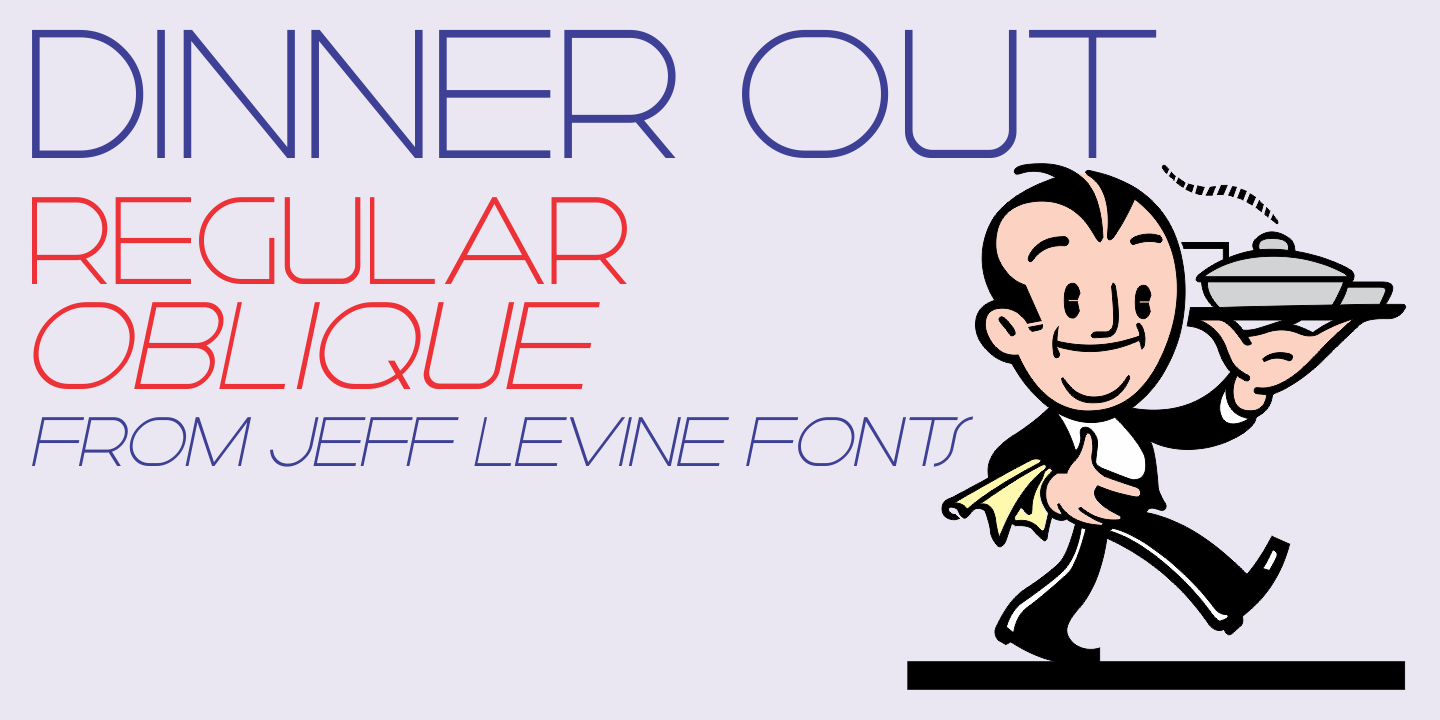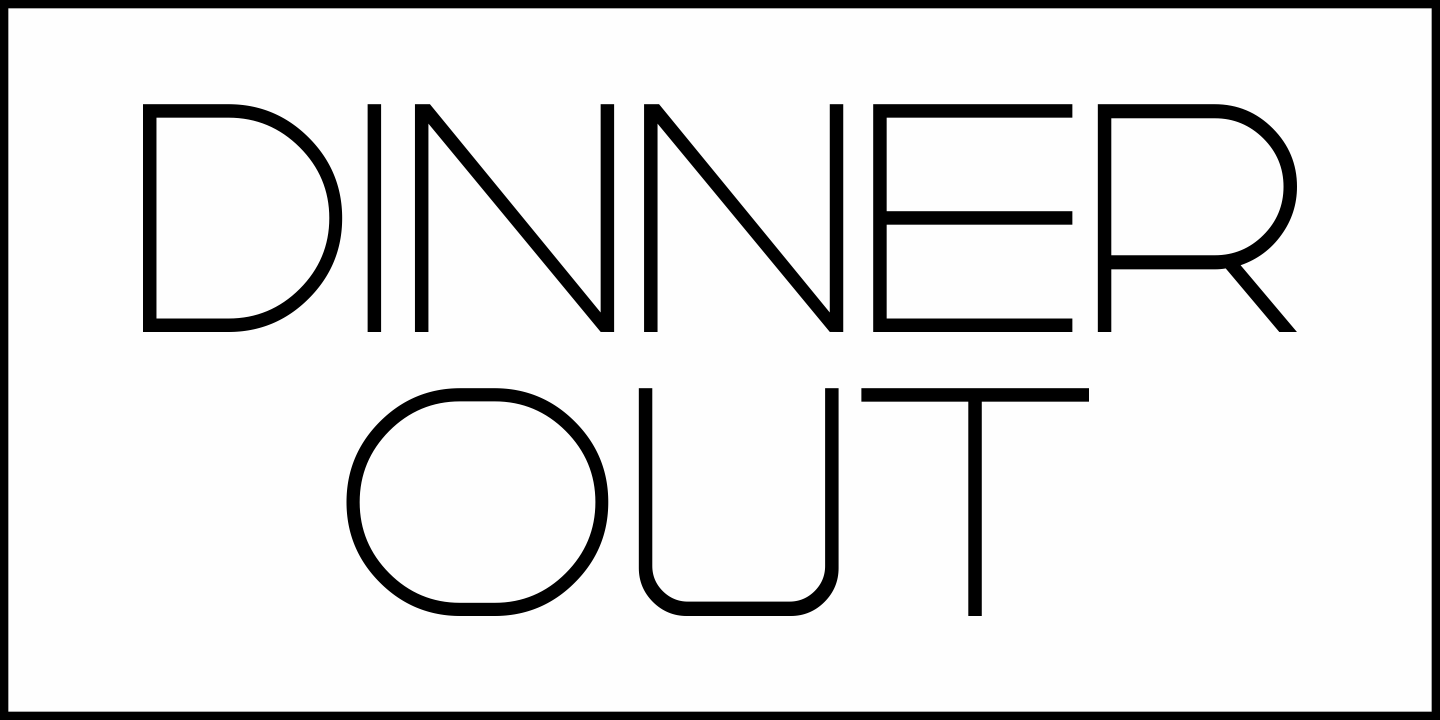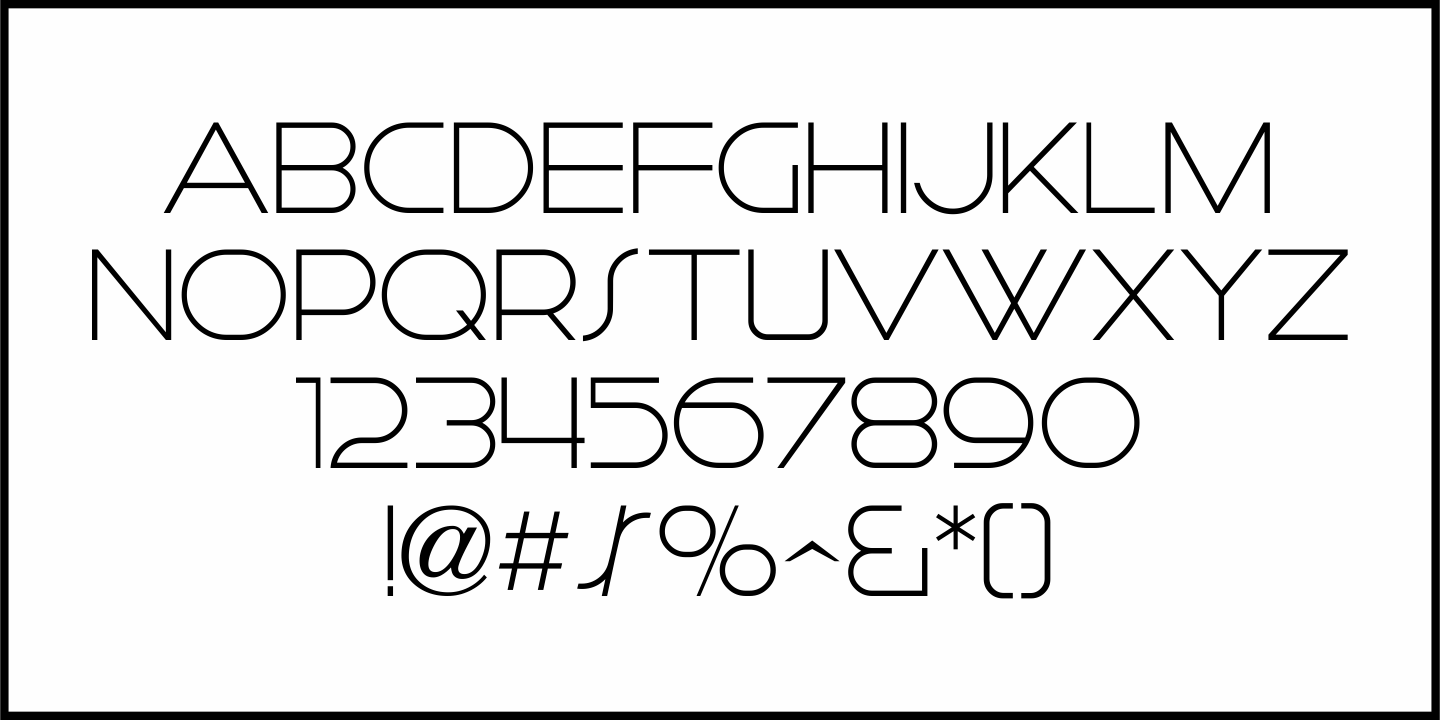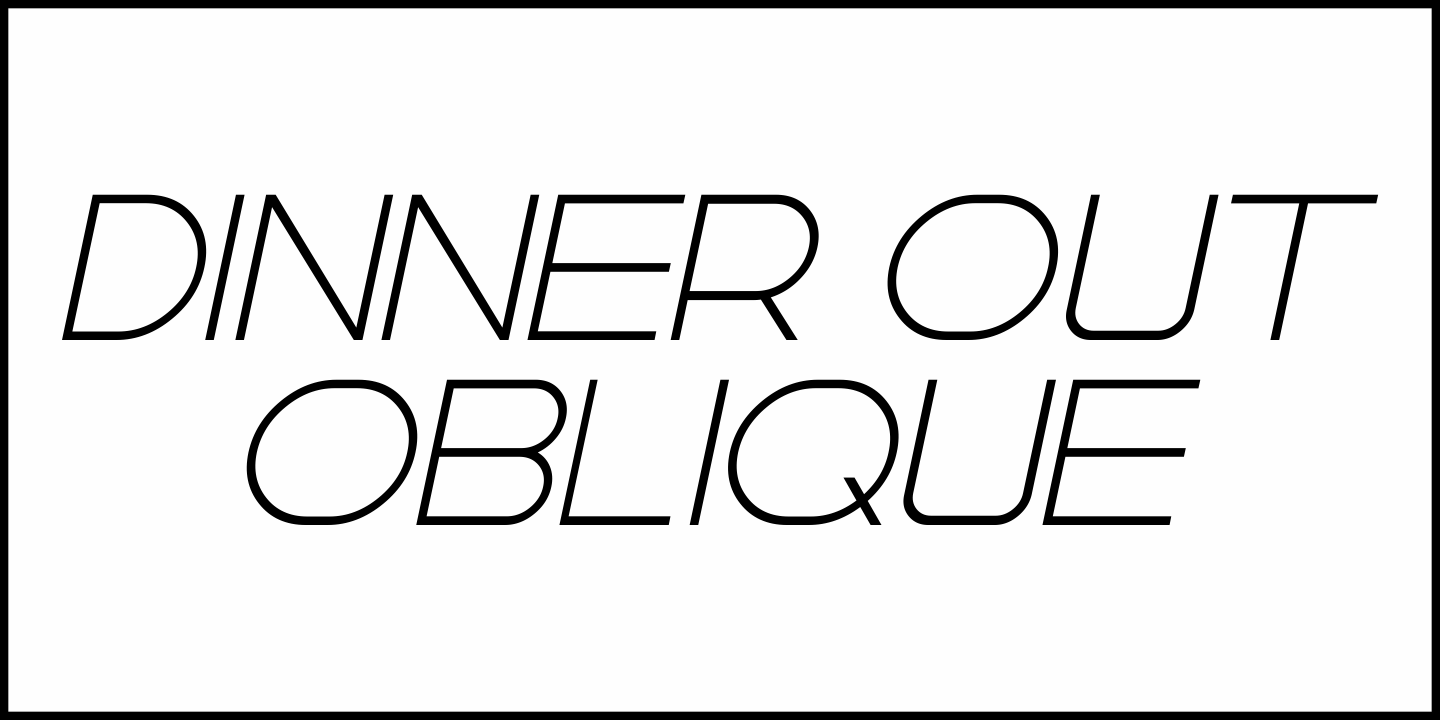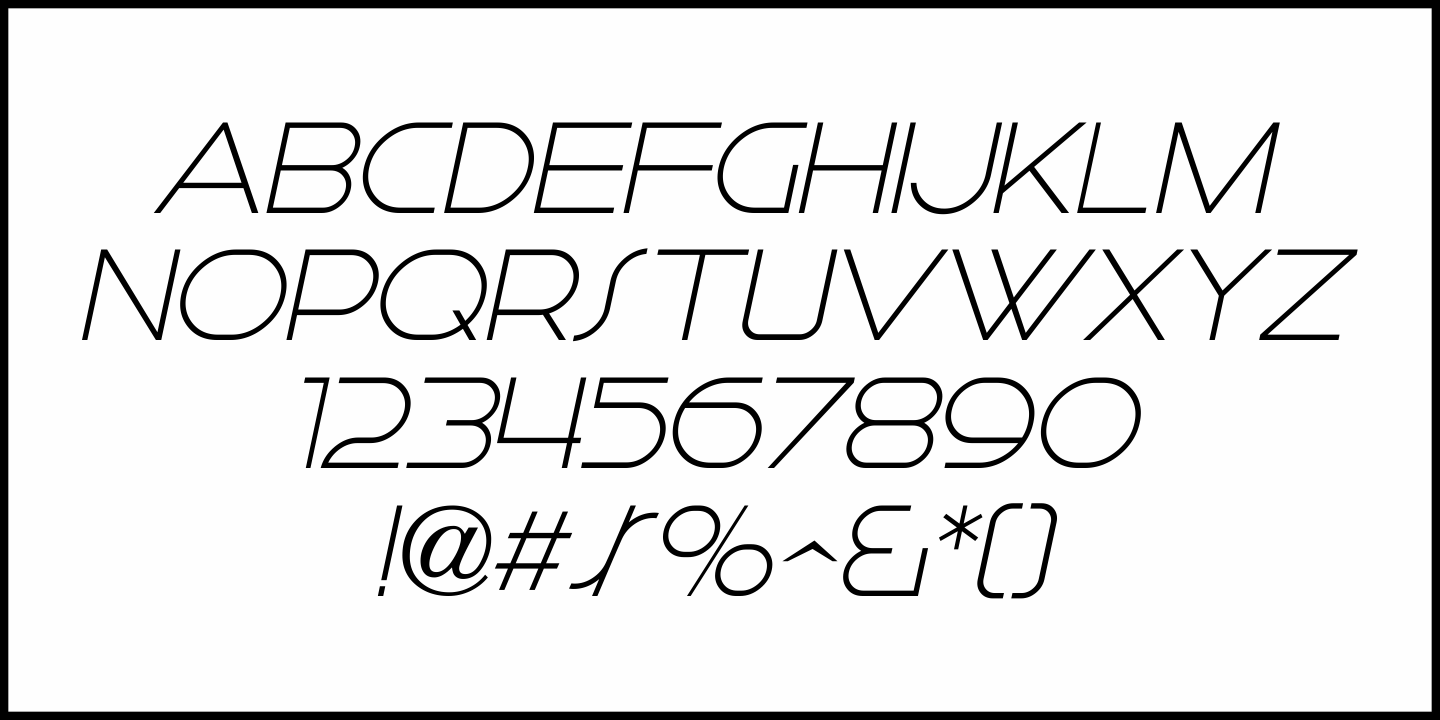
Dinner Out
A 1937 image of New York's famous Longchamps Restaurant shows off the beautiful neon signage on the building. The thin, elongated Art Deco sans lettering evoked the style and charm of the restaurant itself.
Expanding on this idea, Dinner Out JNL is the digital version of that signage, and is available in both regular and oblique vesions.